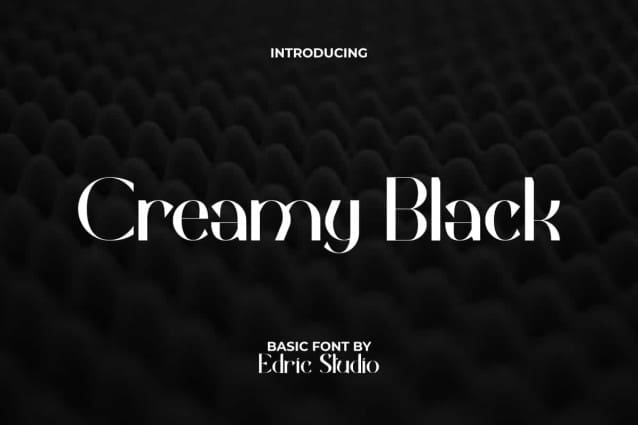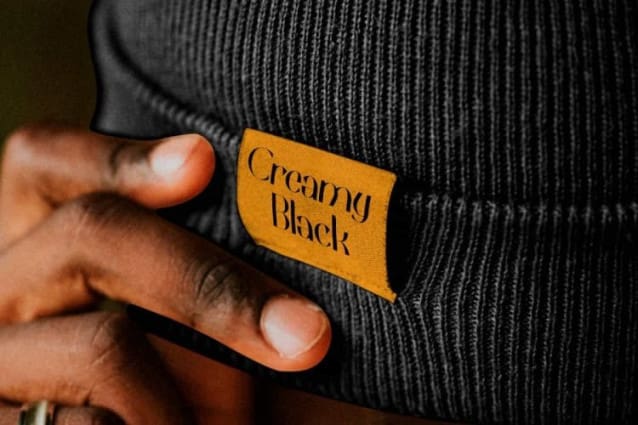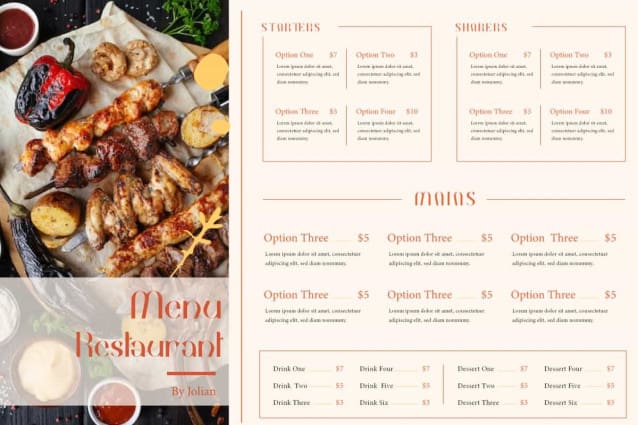
Creamy Black Font
Creamy Black Font is a modern and stylish display font with unique characters shape so that it leaves a lasting impression on each letter. It will be suitable for any business, such as entertainment, accessories, art, café, event organizer, fashion, handicraft, photography, printing, publishing, restaurant, writer, and many more!
Creamy Black Font comes with full set of Uppercase and Lowercase Basic Characters, Number, a large range of Punctuation, and Symbol. It has a attractive characters set, perfectly managed with well spaced and kerning. Creamy Black Font will be able to complement for any design (with extended license) including: brand image, cover, custom design, label, merchandise, packaging design, poster, quote, screen print, signage, sticker, title, website, etc.